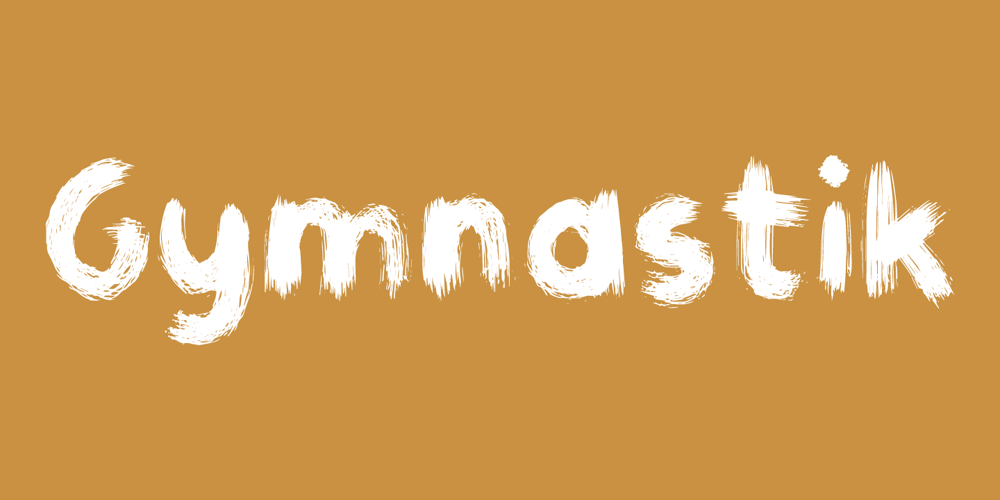
Gymnastik
Gymnastik font
Gymnastik Font Family was designed by published by Bogstav. Gymnastik contains 2 styles and family package options. Gymnastik is danish for gymnastics – you know it’s healthy for you! Just as healthy as using brush type for your next poster or postcard! The Gymnastik font has multilingual support as well as contextual alternates!